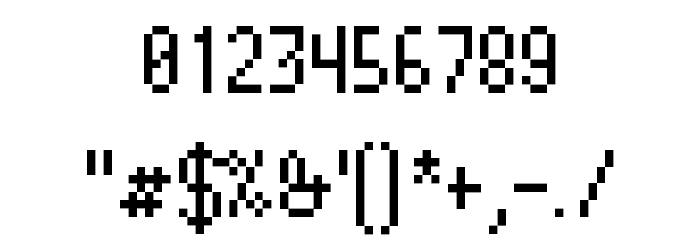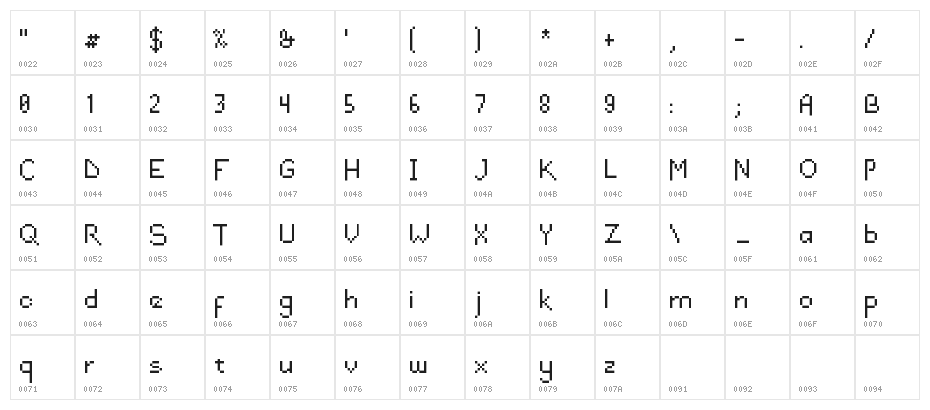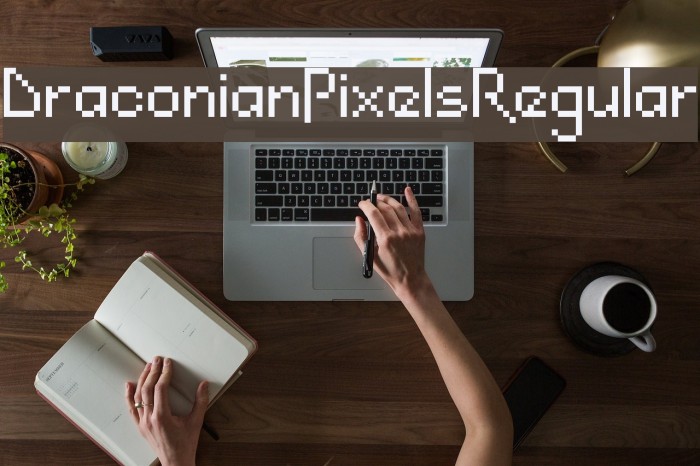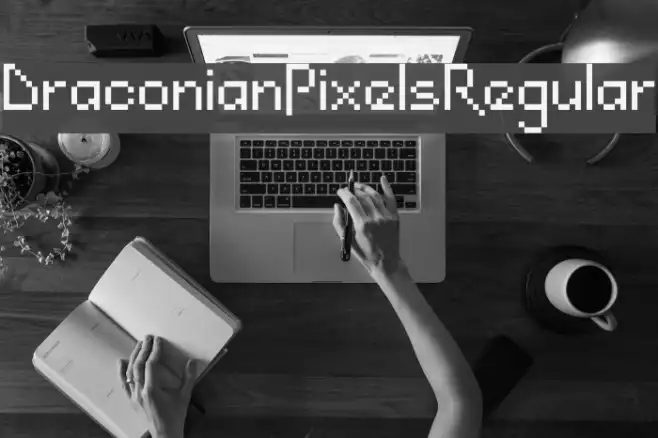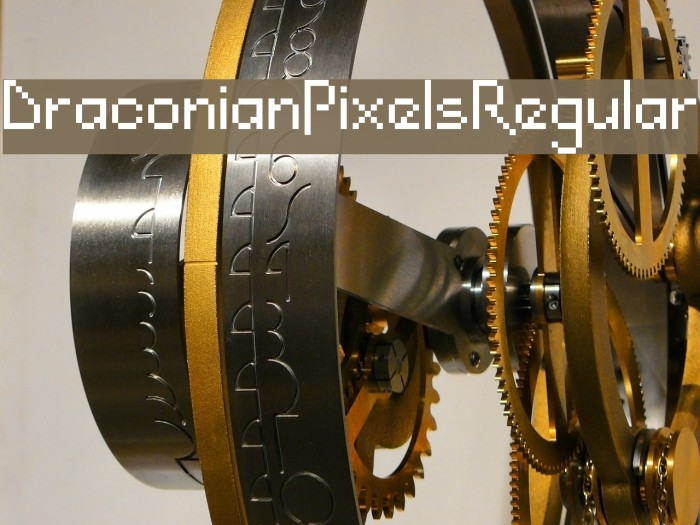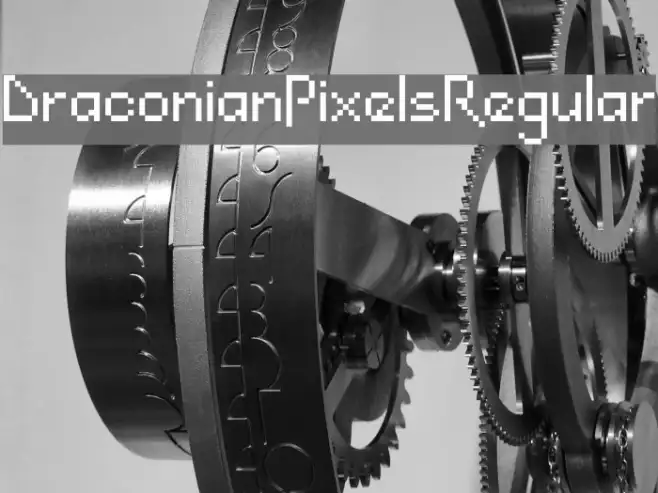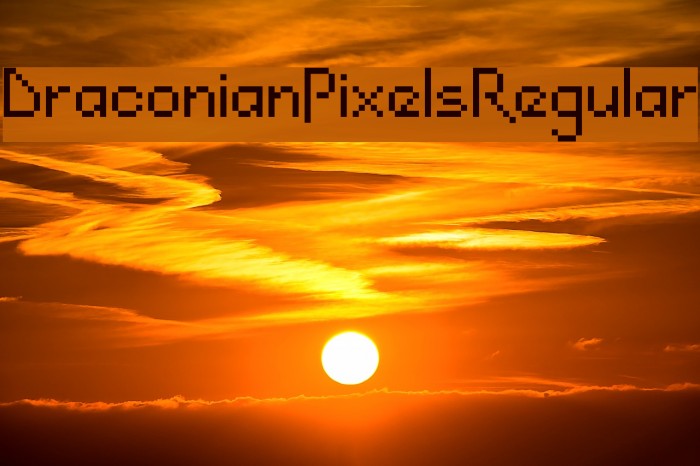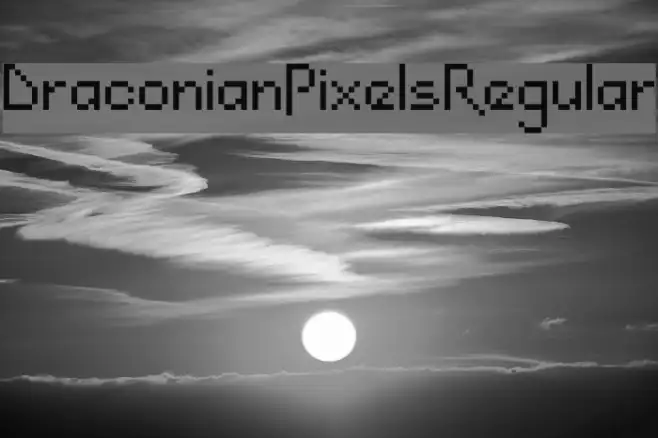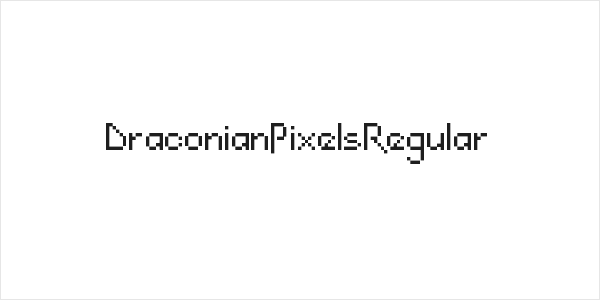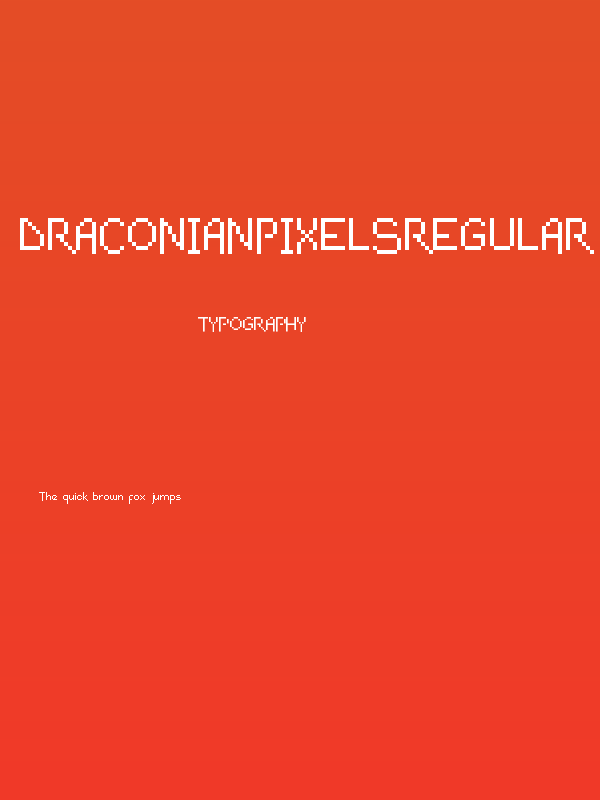
DraconianPixelsRegular Font
DraconianPixelsRegular Description
This font features a pixelated, grid-like structure reminiscent of early digital typefaces. Each character is composed of uniform square blocks, giving it a distinctly retro, 8-bit aesthetic. The uppercase and lowercase letters maintain a consistent height, with the uppercase being slightly taller. Numbers and special characters follow the same pixelated style, ensuring uniformity across all glyphs. The font's simplicity and geometric precision make it ideal for projects that aim to evoke nostalgia for classic video games or digital interfaces.
Overall StyleVintage
Use CaseLogos, Headlines, Digital interfaces
Proposed ProjectsIdeal for retro video game designs, digital art projects, and nostalgic branding.